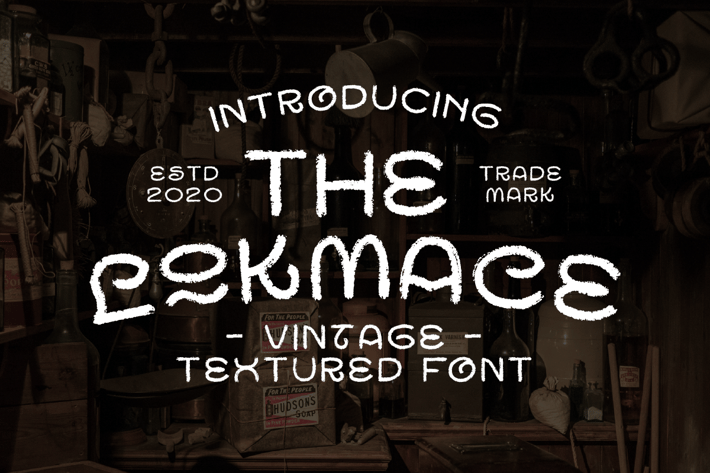
Lokmace Vintage Texture Font
MartypeCo
Lokmace is a brush typeface inspired by brush calligraphy this typeface is ready to use and suitable rush design like for Modern design, cover book, poster, flyer etc.
Lokmace Regular
Lokmace Slant